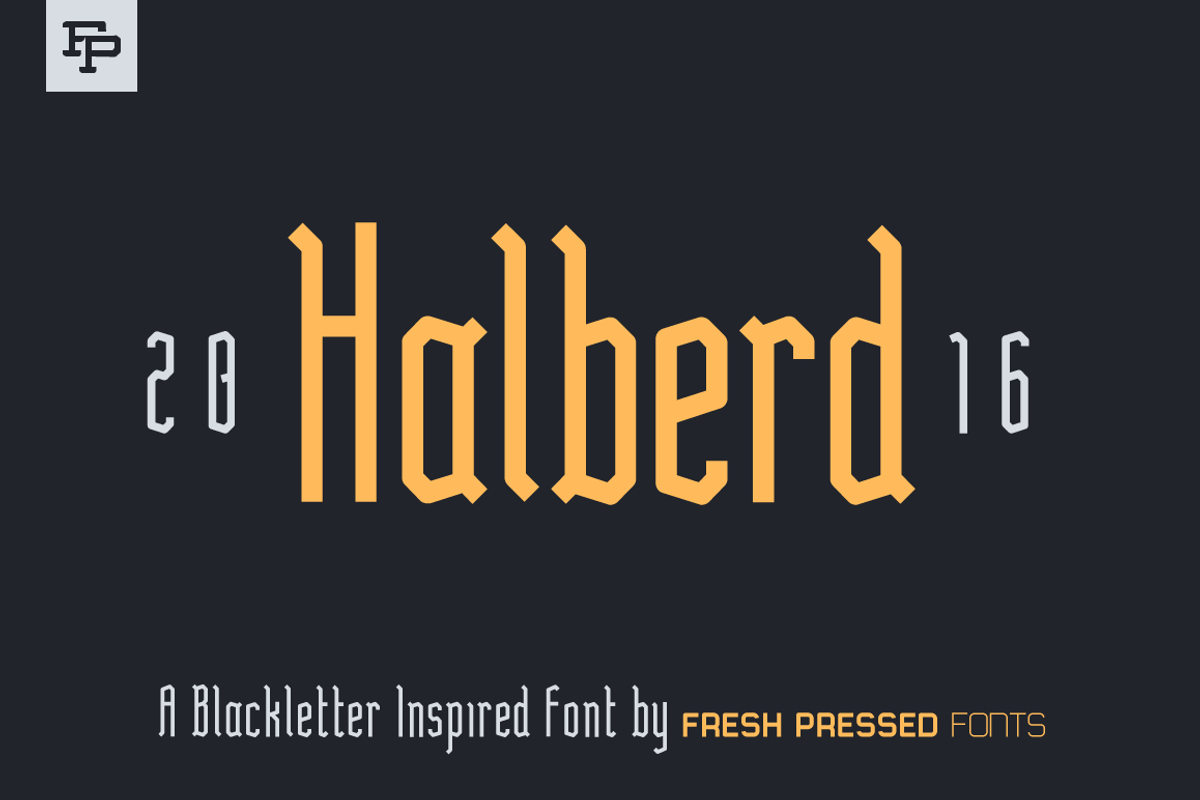
Please note, to use this font for commercial purposes, you must purchase the full version. Halberd Display Font is a striking and bold typeface designed to make a strong impact. With its sharp, modern edges and geometric shapes, this font is perfect for eye-catching logos, posters, headlines, and branding materials. Whether you're designing a futuristic brand, a bold advertisement, or a dramatic title, Halberd adds a powerful touch to your work. Test it out and enjoy free download access for personal use. Discover the bold presence of Halberd Display Font Free Download before purchasing the commercial license. Make a statement with your designs using Halberd.